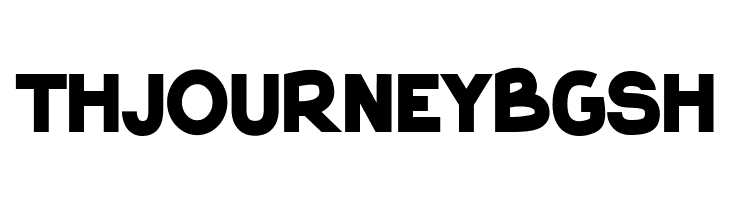
( CROLrene )
A geometric, grid-patterned font with a modern, pixelated style.
( Osama El Khalfaoui - osamaworks.com/ )
A sleek, geometric sans-serif font with a modern and minimalist design.
( Fonts by Anthony Robinson )
A bold, 3D geometric font with a striking, blocky appearance.
A modern, high-contrast font with elegant, slender characters.
A bold, brush-style font with dynamic and energetic strokes.
A dynamic, expressive handwritten font with fluid strokes and a personal touch.
A playful font with heart motifs, perfect for romantic and whimsical designs.